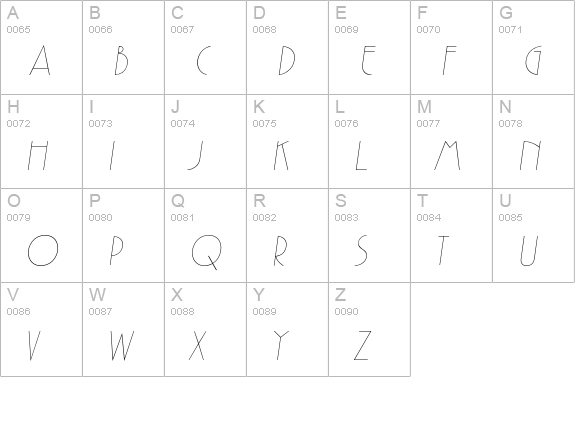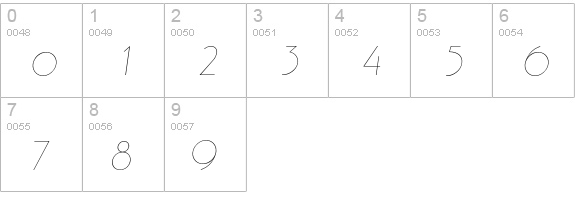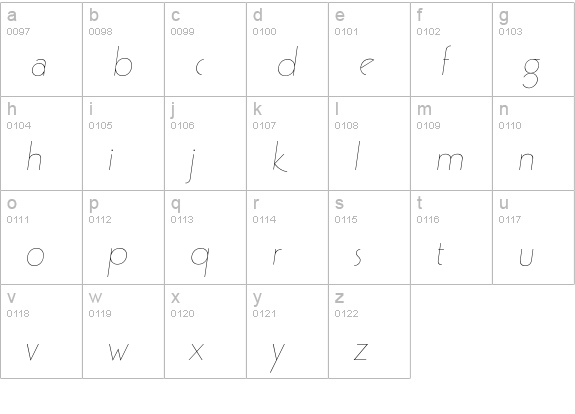
Introducing PergamonItalic, a stunningly elegant font that effortlessly blends sophistication with modernity. This exquisite typeface, with its delicate curves and graceful letterforms, adds a touch of refinement to any design project. PergamonItalic is designed to captivate and inspire, making it perfect for a wide range of creative endeavors. With its versatility and timeless appeal, PergamonItalic is a font that truly stands out from the crowd. Whether you're working on branding materials, editorial layouts, or even personal projects, this font will effortlessly elevate your designs to new heights. But what makes PergamonItalic even more remarkable is that it is freely available to download at FontsMarket.com. Yes, you read that right – this exceptional font can be yours without any cost. FontsMarket.com is your one-stop destination for high-quality fonts, and PergamonItalic is no exception. Take advantage of this opportunity to enhance your design toolkit with a font that exudes elegance and sophistication. With PergamonItalic, you have the freedom to explore your creativity without any limitations. Its sleek and stylish design ensures that your message is conveyed with utmost clarity and impact. Its flowing letterforms and subtle variations make it a pleasure to read, creating an immersive experience for your audience. So why settle for ordinary when you can have extraordinary? Download PergamonItalic today from FontsMarket.com and unlock a world of creative possibilities. Whether you're a professional designer or a casual enthusiast, this font is sure to become an indispensable part of your typographic arsenal. Don't miss out on this opportunity to add a touch of timeless elegance to your designs – get PergamonItalic now and let your creativity soar.